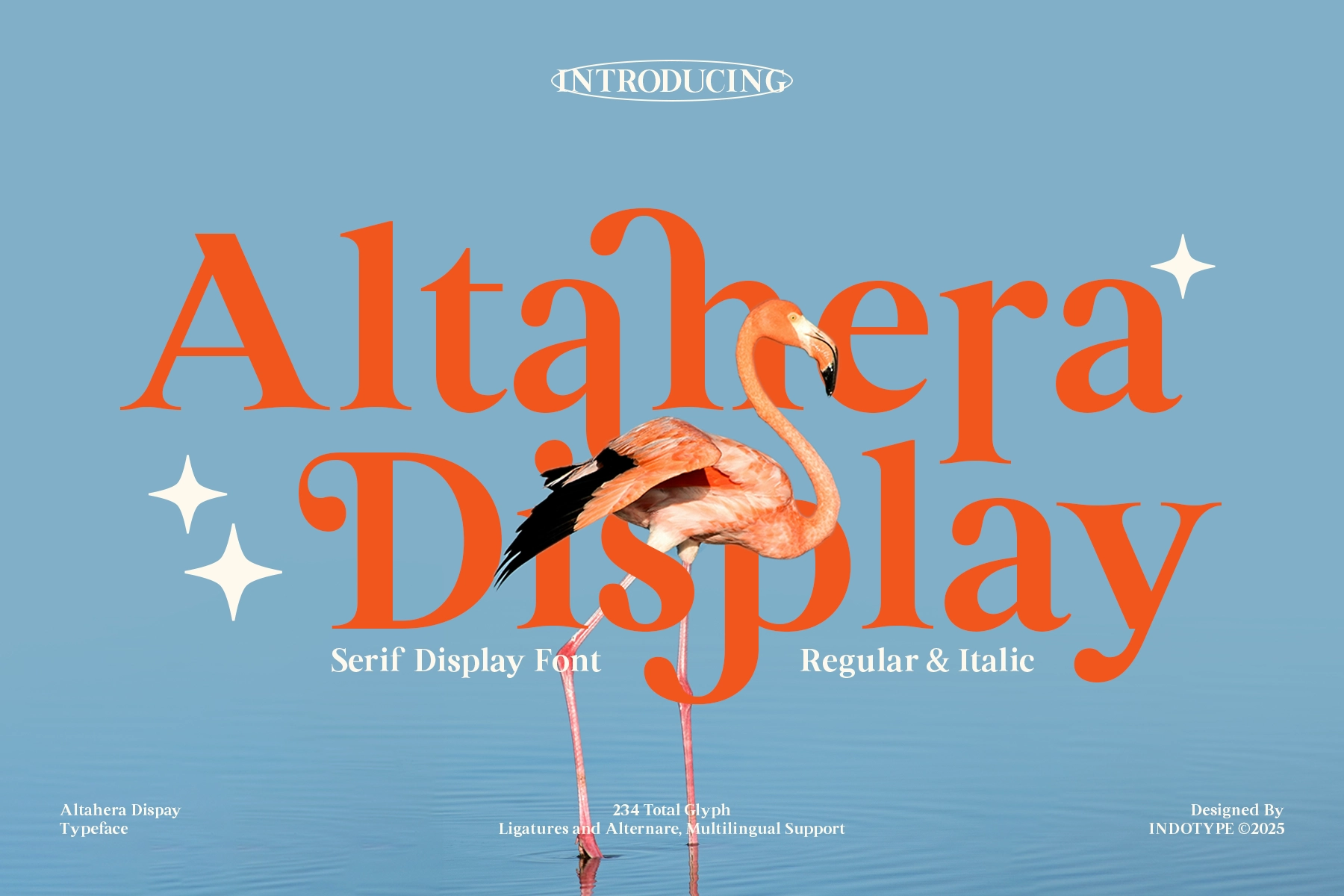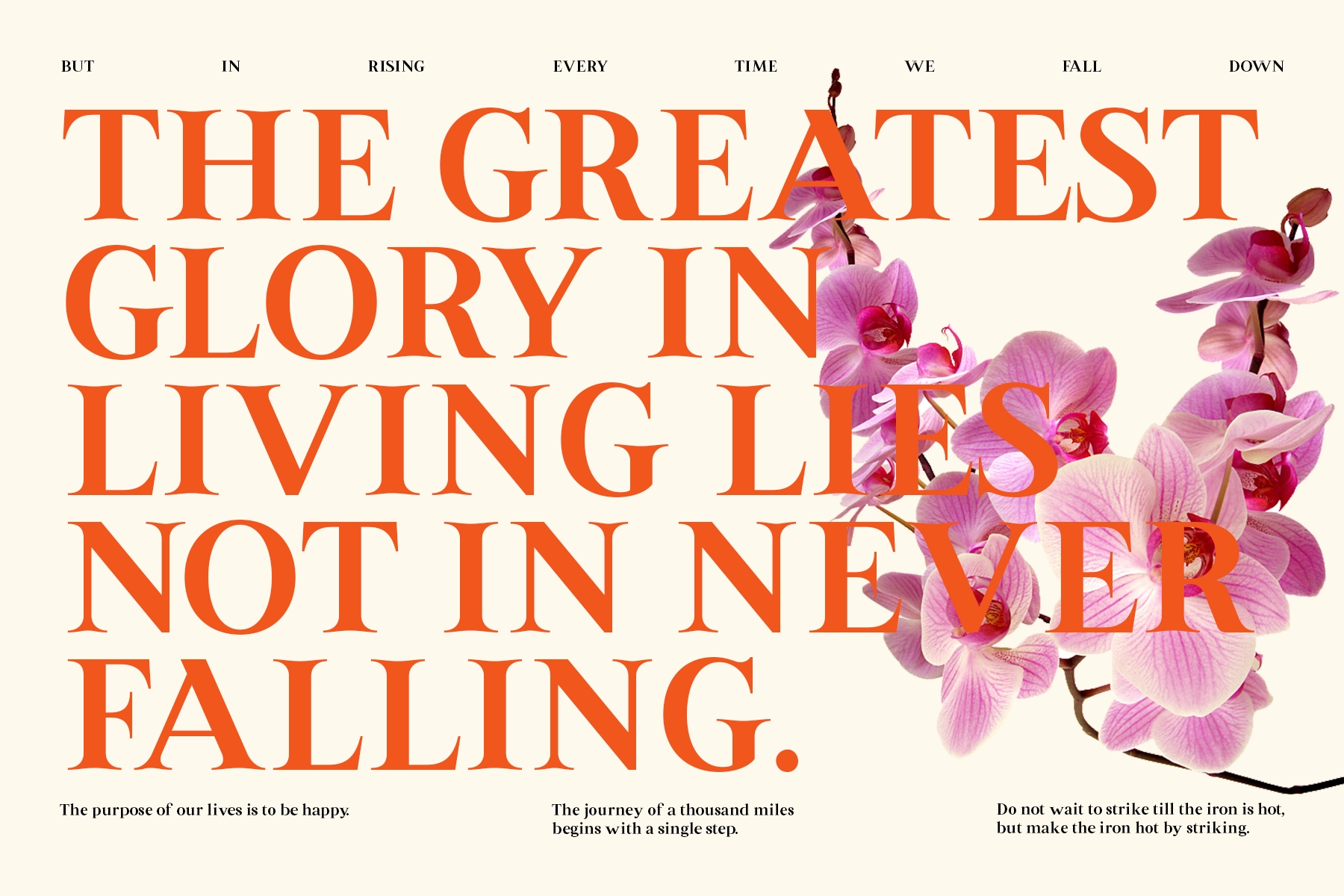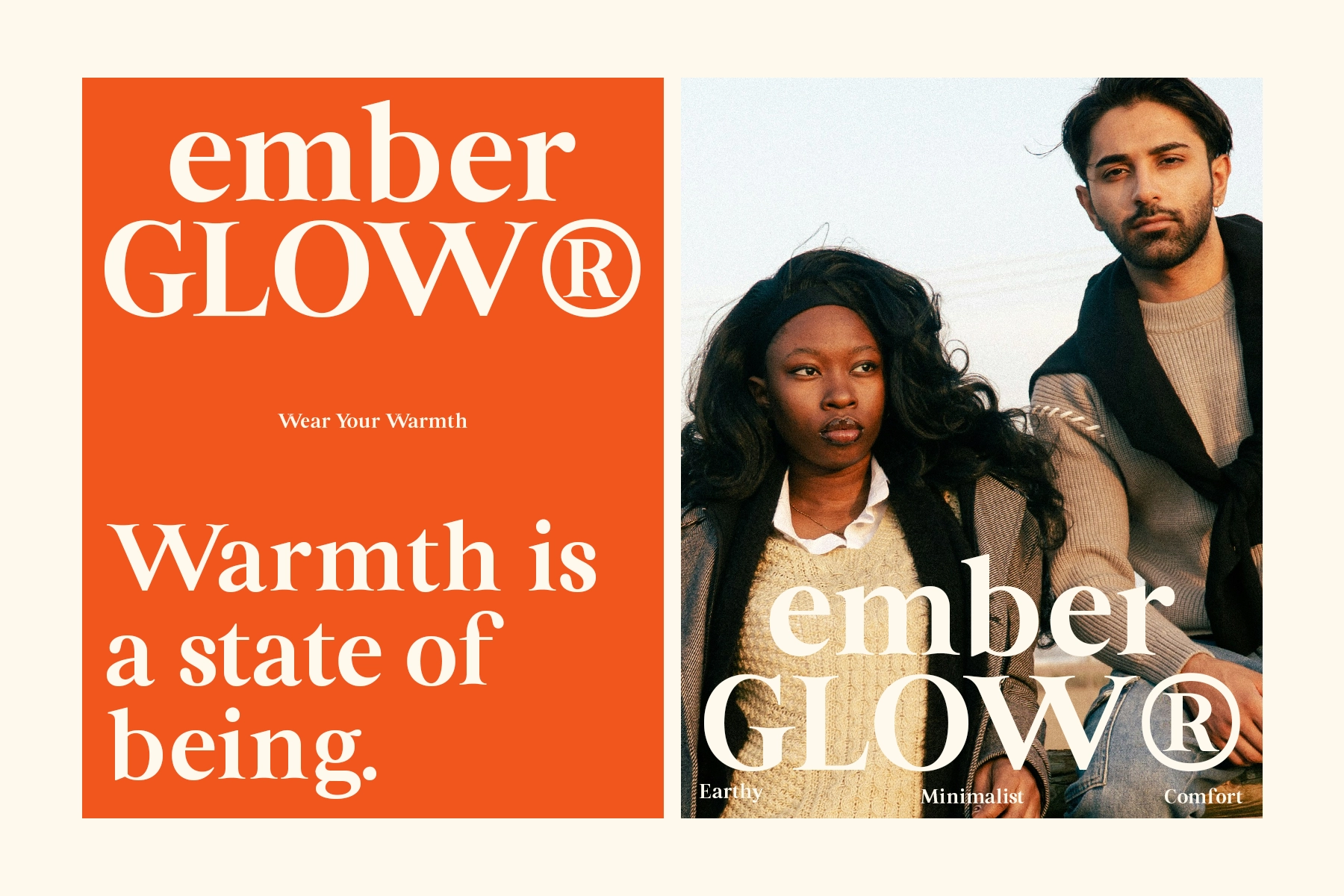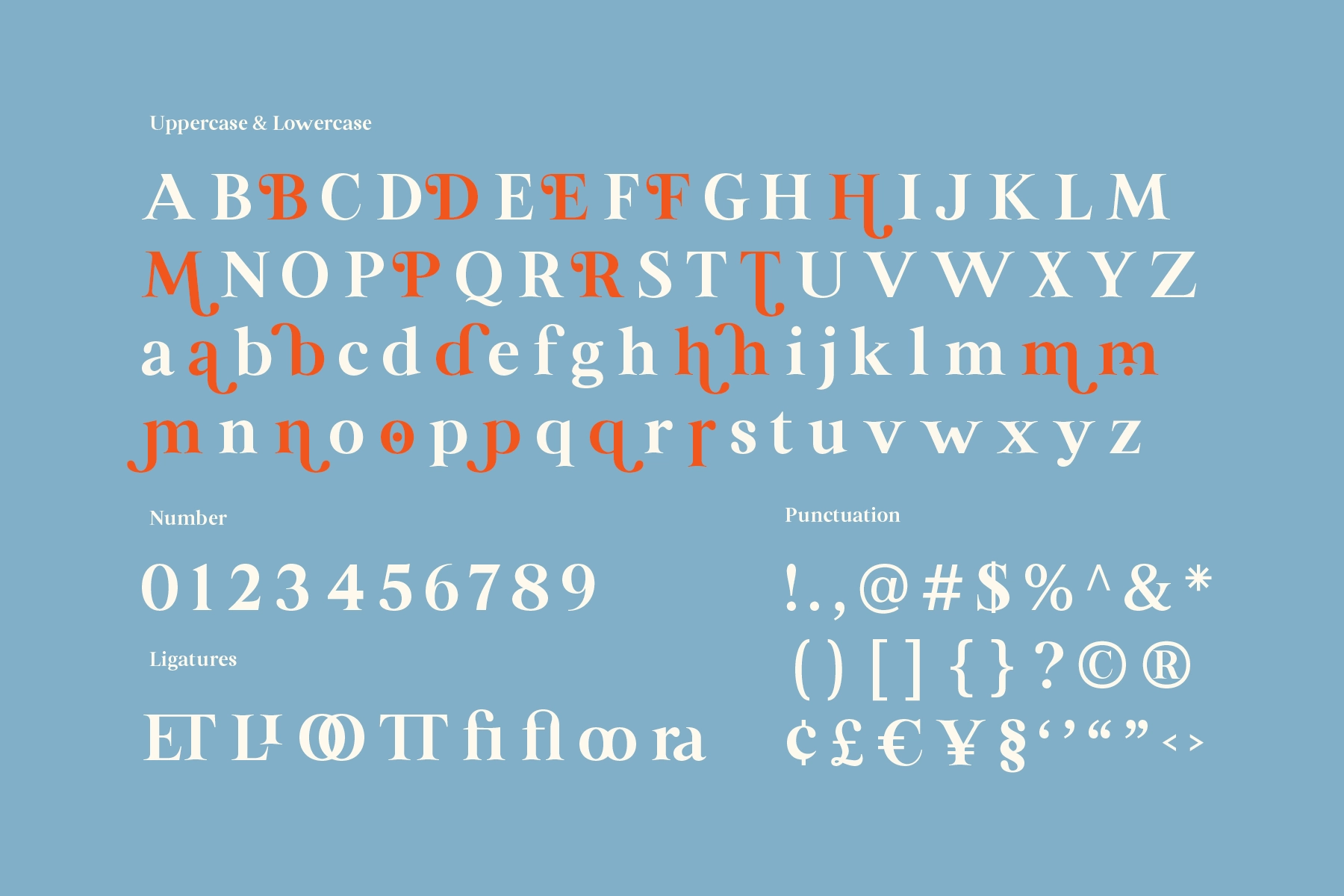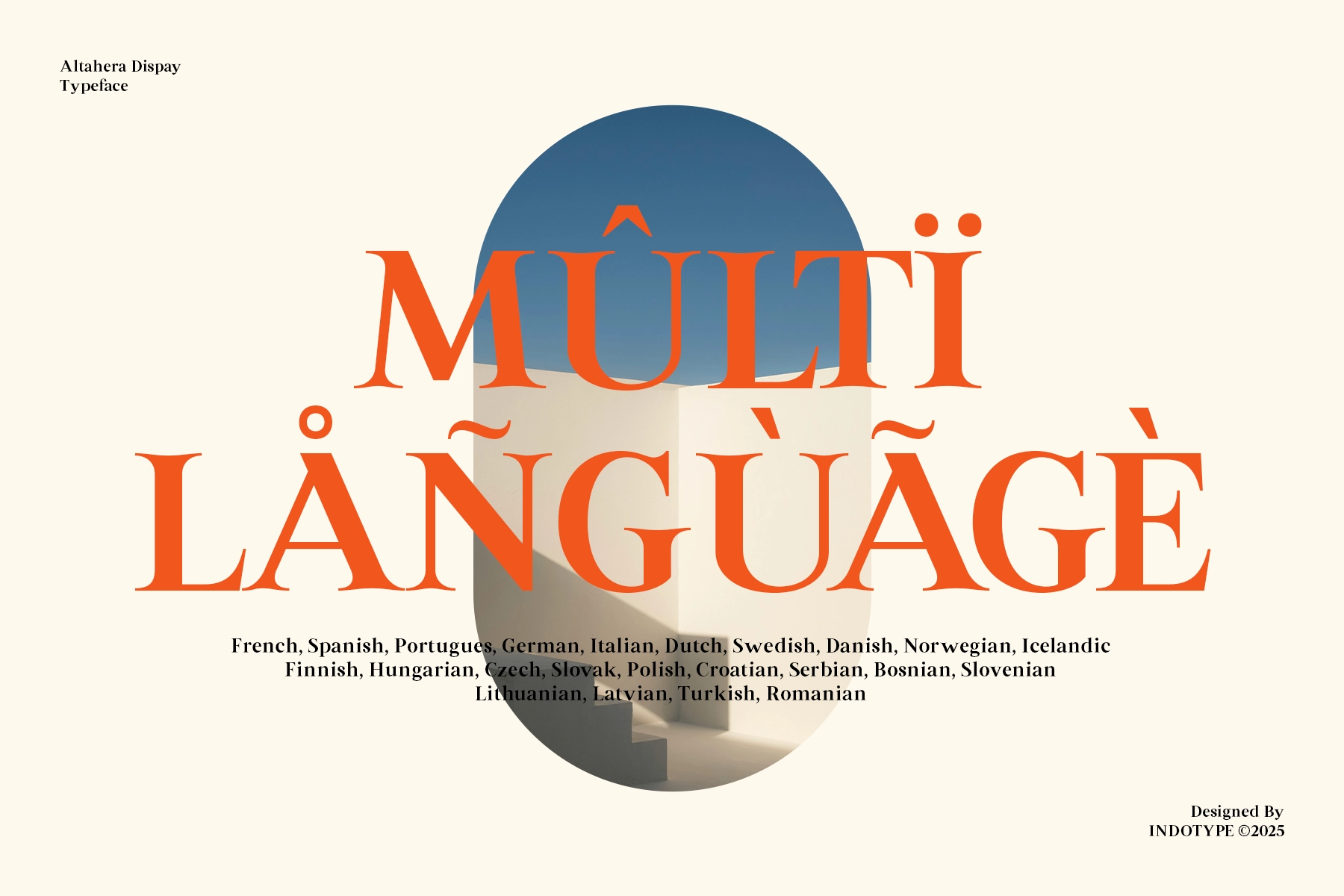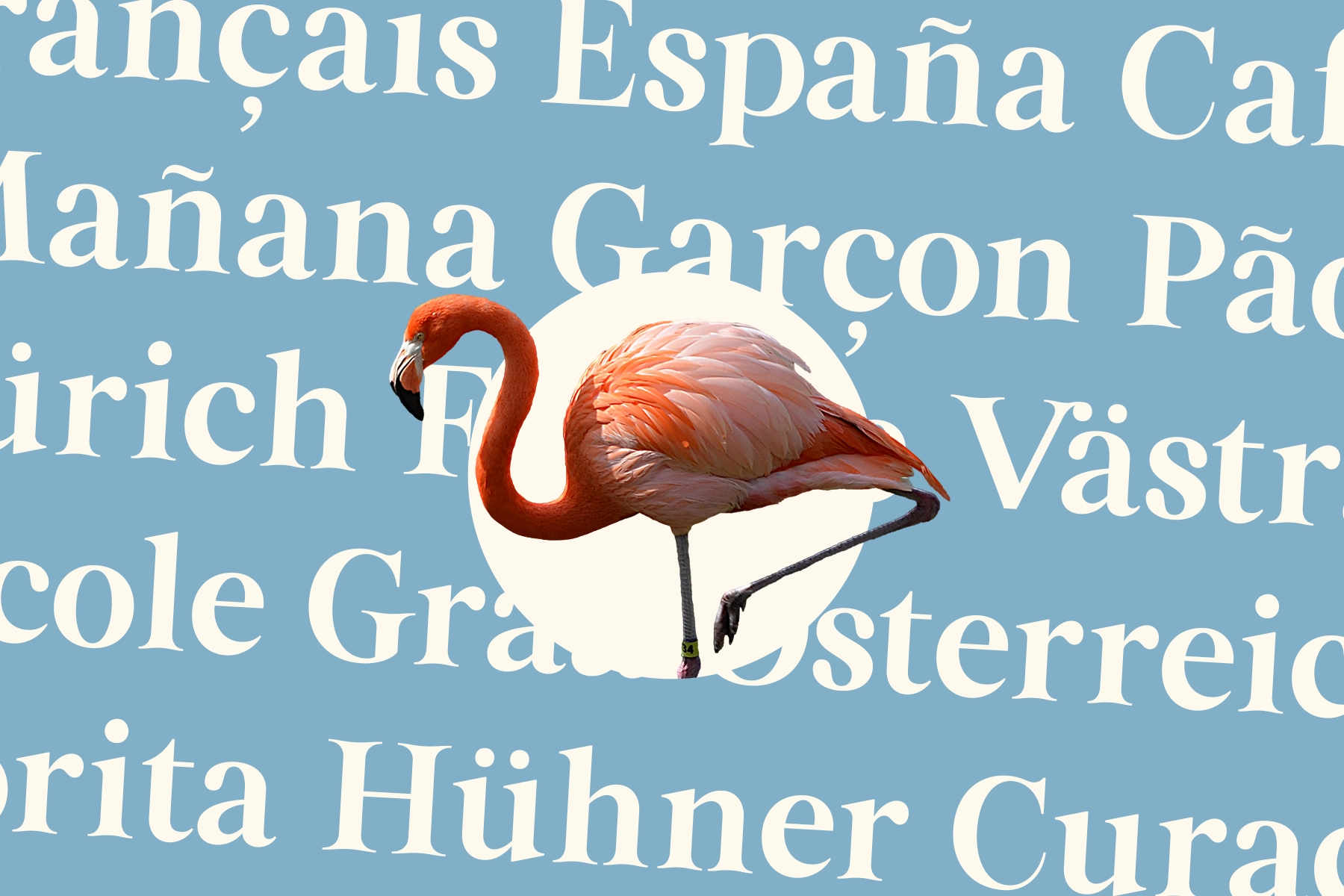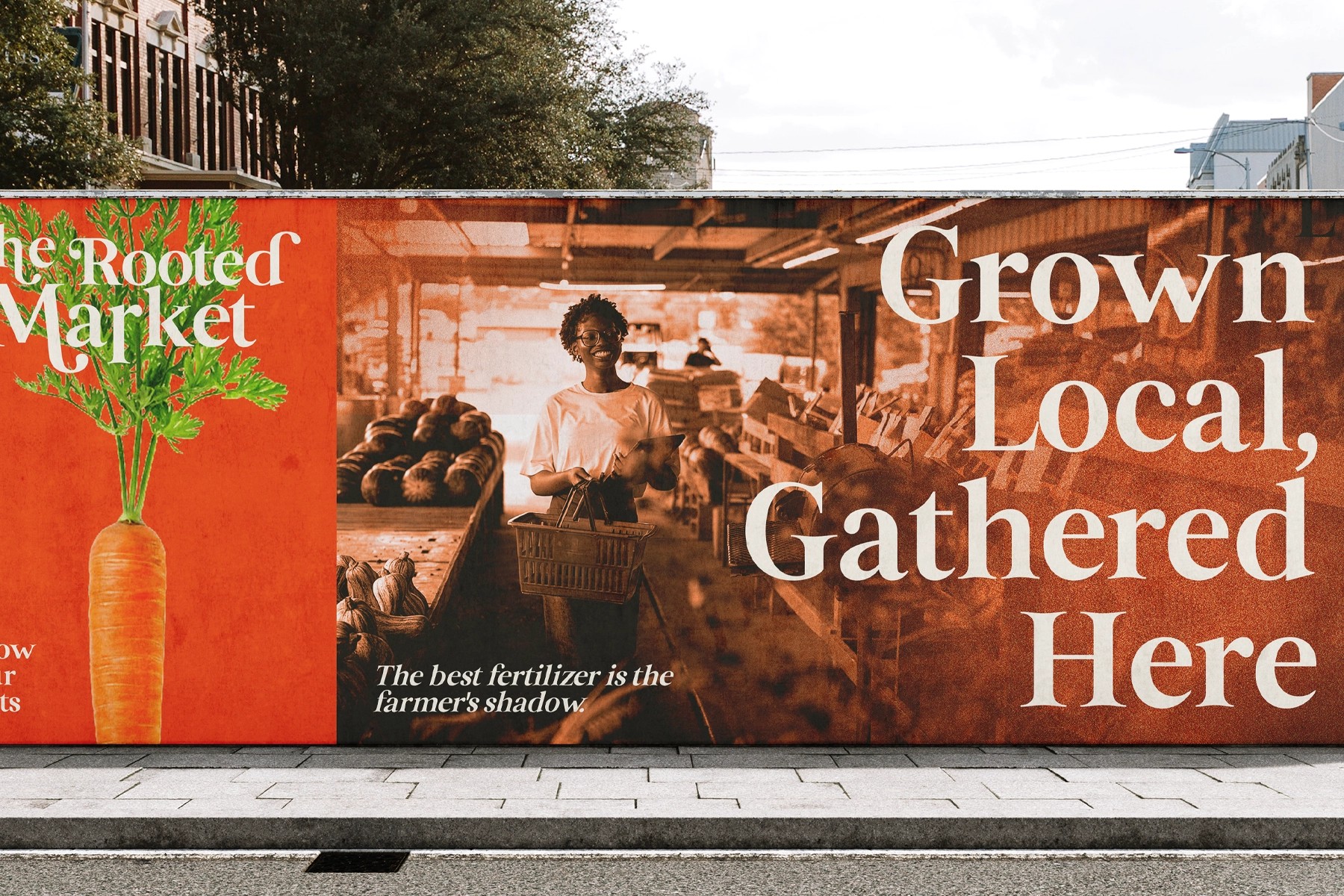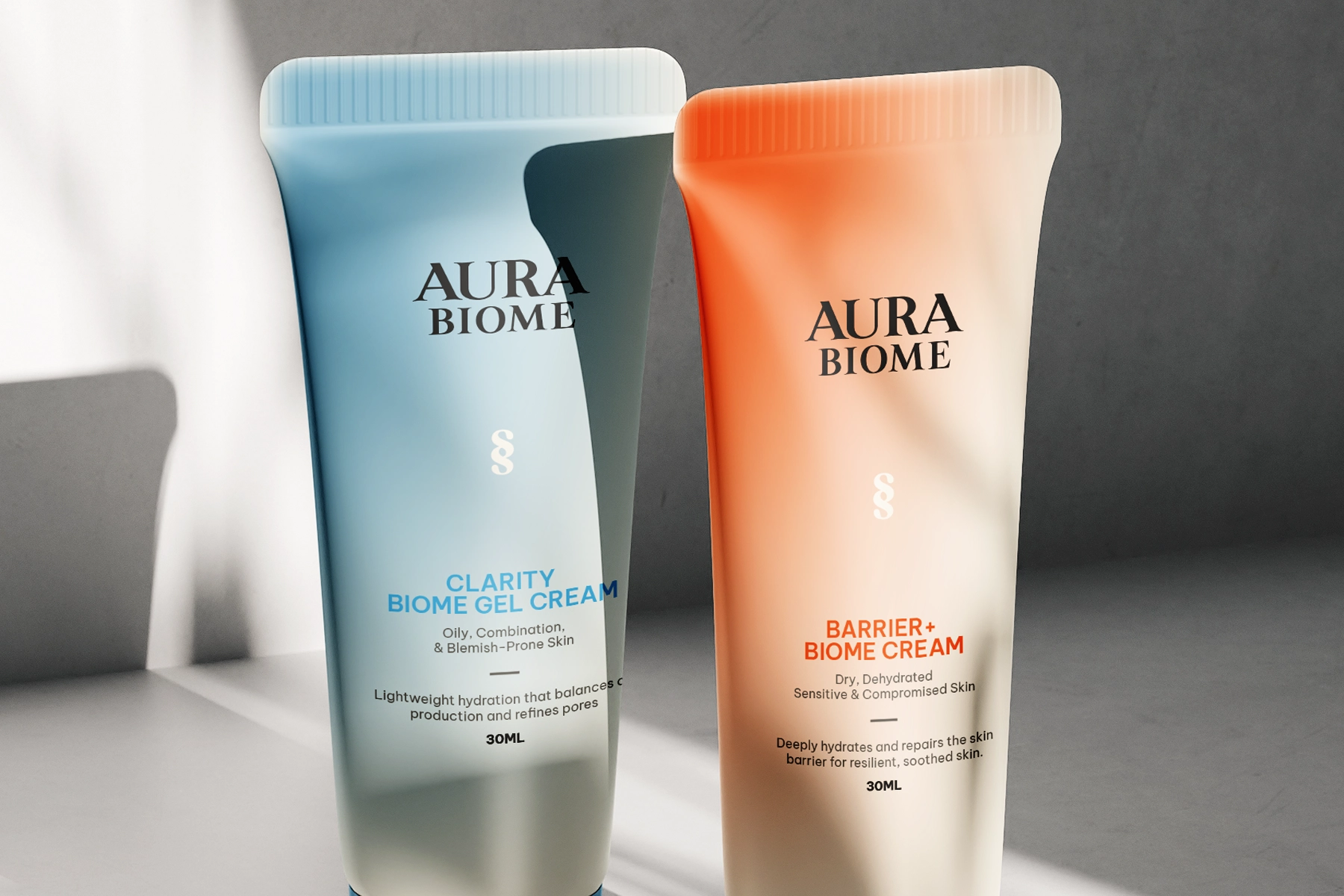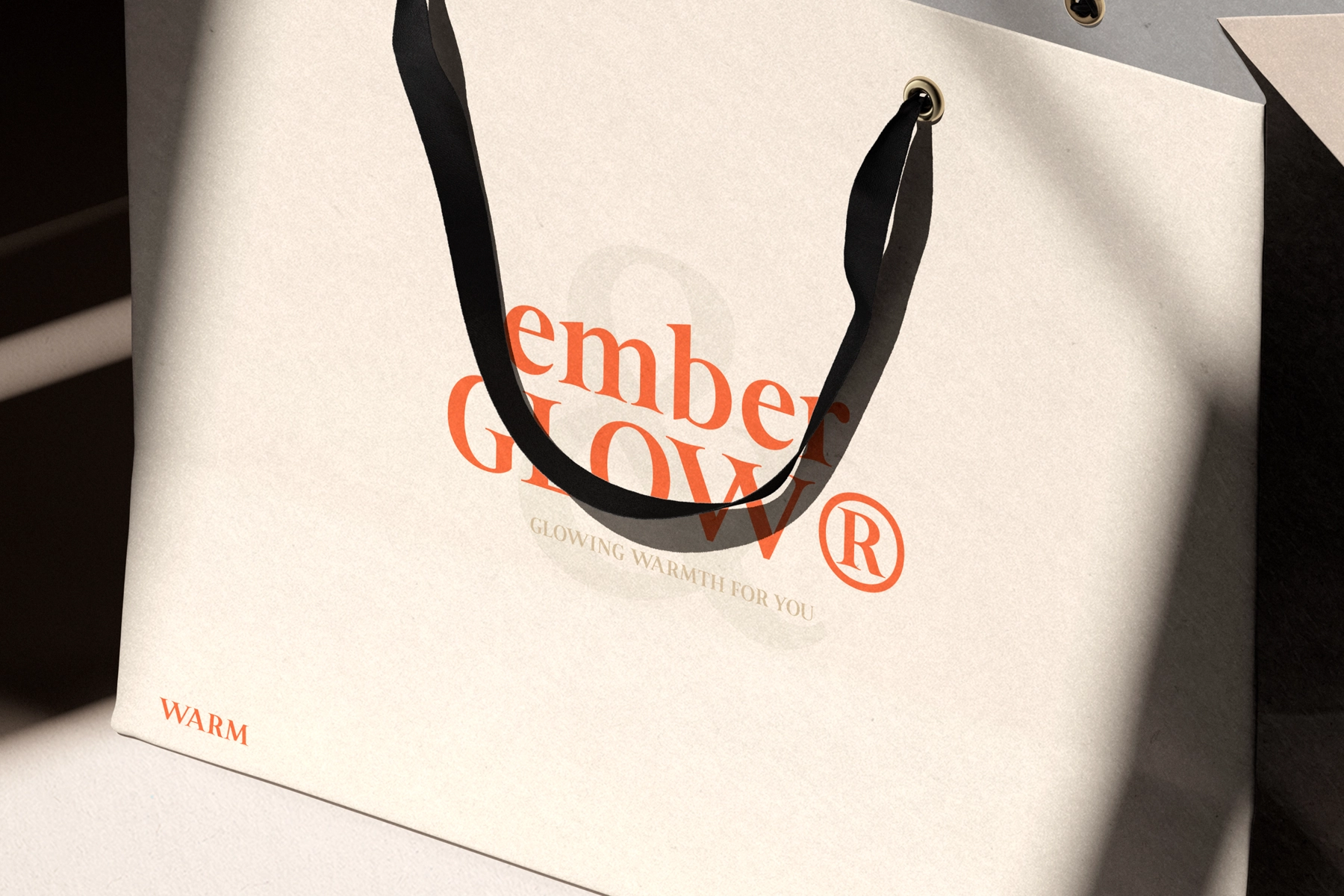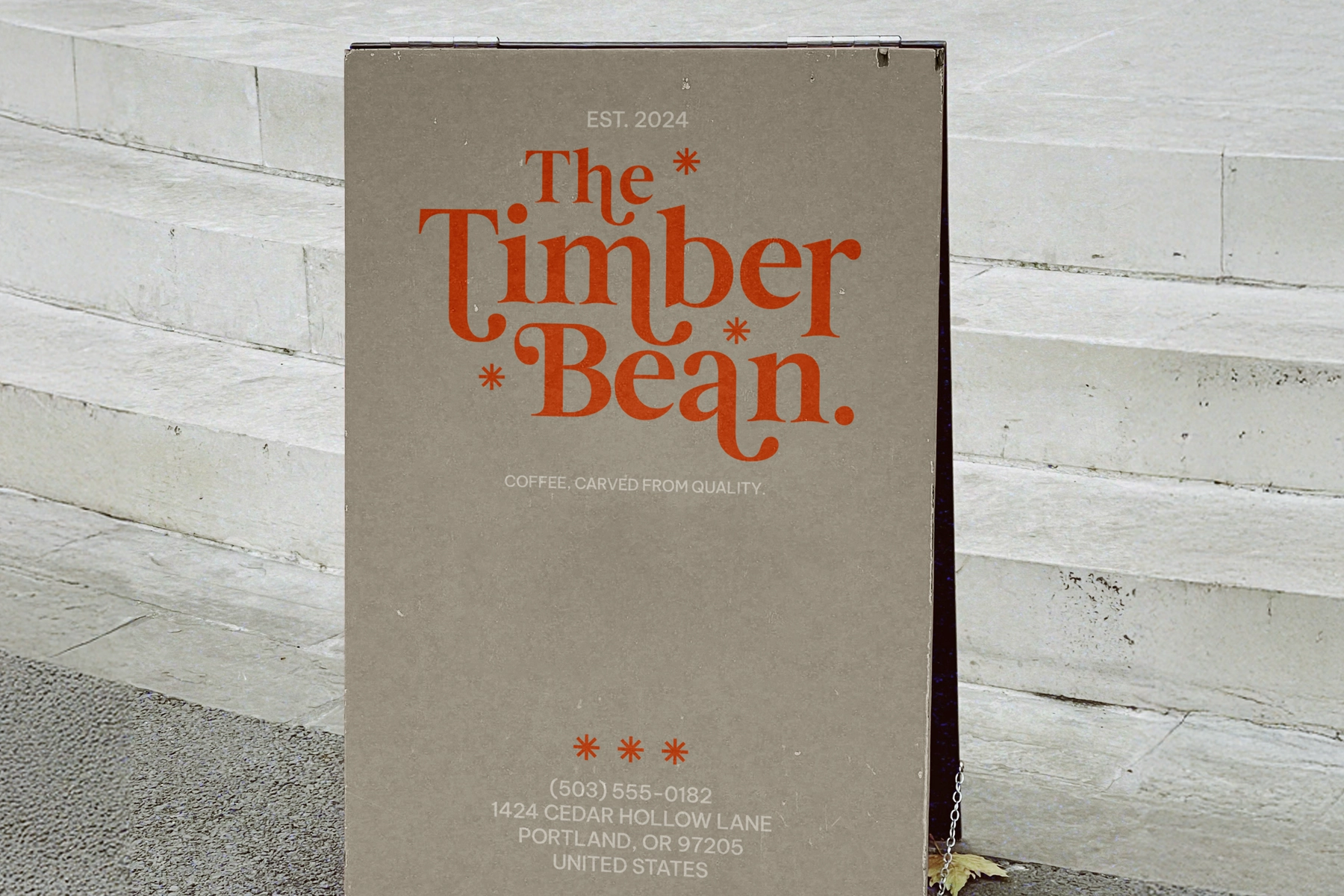
Altahera Display - Elegant Serif Display Font
This elegant serif typeface carries tall contrast, flared serifs, and a poised editorial rhythm made for large-scale typography. Its letterforms are sharp without looking severe, with graceful alternates and ligatures that give headlines a cultured, slightly dramatic edge.
Altahera works especially well for fashion campaigns, magazine covers, luxury packaging, boutique branding, art posters, perfume labels, wedding stationery, book titles, gallery invitations, social media graphics, website hero sections, and more. It has the kind of presence that can hold a full layout on its own — useful when the design budget says “minimal” but the typography insists on main-character billing.
- Ligatures and alternates